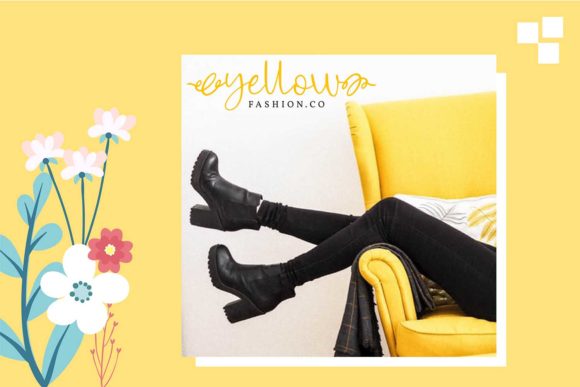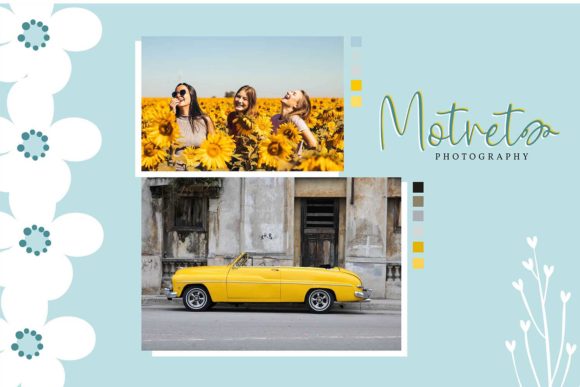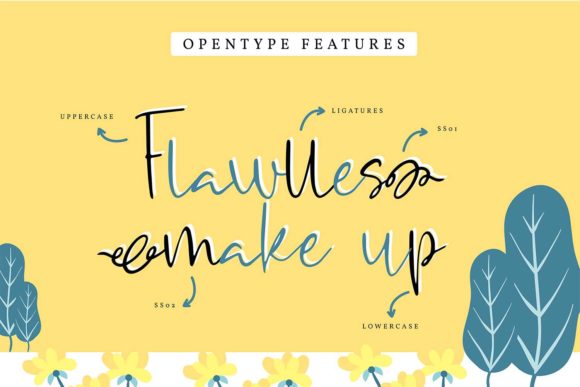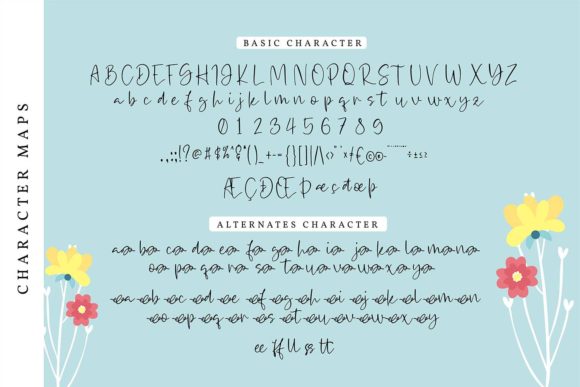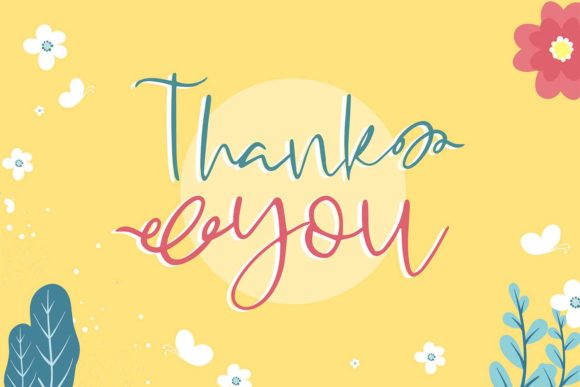
Introduction to La Fillea Font
La Fillea is a graceful and dainty handwritten font.
It has beautiful and well balanced characters and as a result, it matches a wide pool of designs This font is PUA encoded which means you can access all of the glyphs and swashes with ease.
Key Features of La Fillea Font